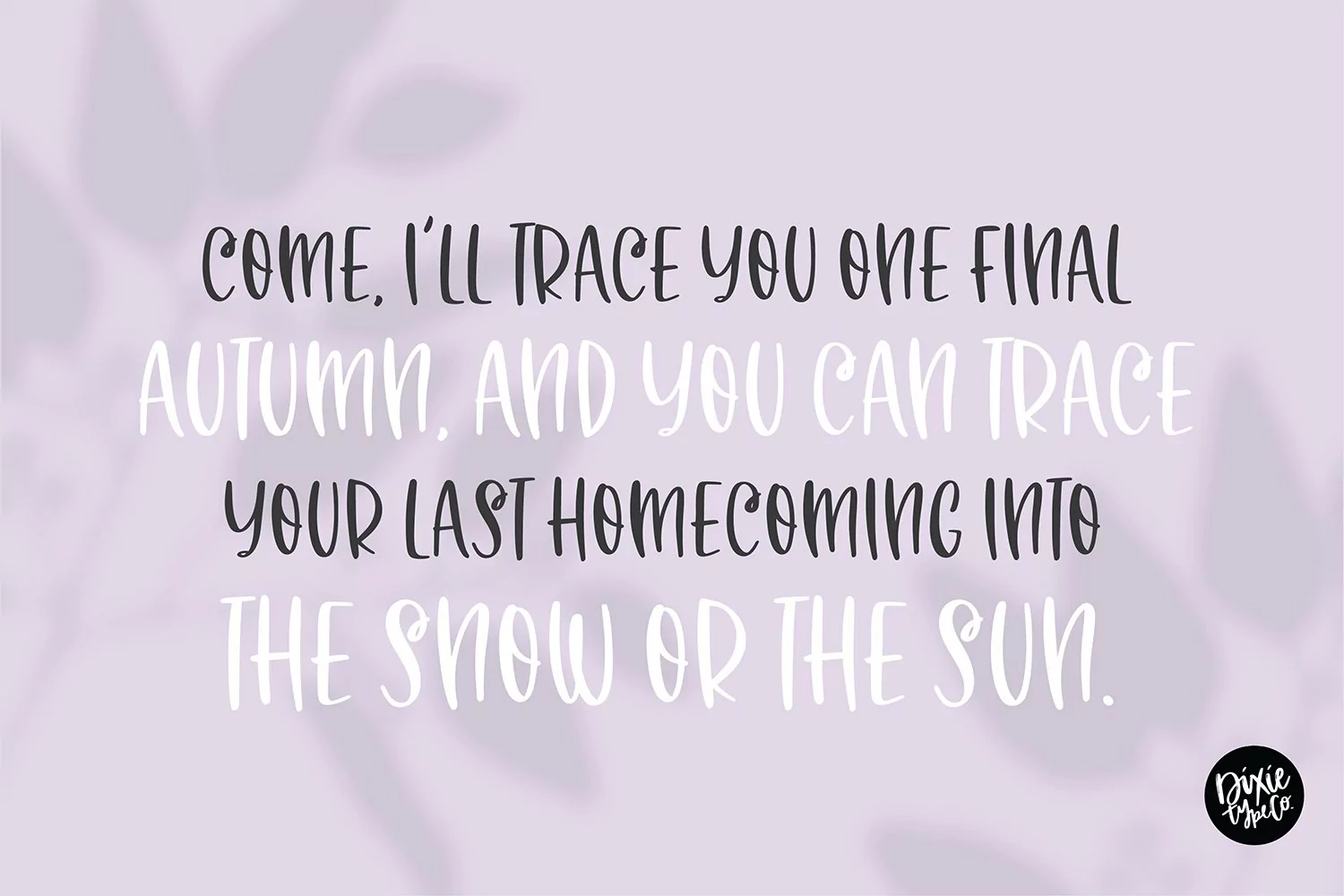
"Autumn Sunshine" hand lettered installable font.
{ A typographic font hand lettered with love by Dixie Type Co. }
Autumn Sunshine is a simple brush lettered font. Use it for your fall crafts and home decor.
Font includes: All caps glyphs, numbers, and basic punctuation.